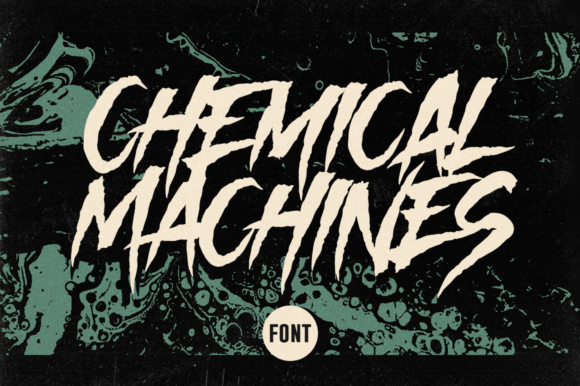
Chemical Machines Font: Unleashing Creativity and Horror
In the realm of typography, fonts play a crucial role in conveying emotions and setting the tone for creative projects. One such font that has gained significant attention in recent times is the Chemical Machines Font. This article aims to provide an in-depth look at this unique typeface, exploring its characteristics, uses, and the inspiration behind its creation.
The Birth of Chemical Machines Font
The Chemical Machines Font is a product of the pursuit of ultimate horror and retro typeface. Its creators aimed to push the boundaries of conventional typography, resulting in a font that is both eerie and fascinating. The font’s design draws inspiration from old machinery, industrial equipment, and the surrealism of the human mind.
Characteristics of Chemical Machines Font
The Chemical Machines Font boasts a distinctive, distressed look that sets it apart from other typefaces. Its rugged, industrial feel makes it perfect for projects that require a sense of grittiness and rawness. The font’s retro aesthetic is reminiscent of vintage machinery and equipment, evoking a sense of nostalgia and timelessness.
One of the key features of the Chemical Machines Font is its versatility. It can be used for monochromatic illustrations, adding a touch of sophistication and elegance to the artwork. Alternatively, it can be paired with modern gradient text effects, creating a striking contrast between old and new.
Exploring the Unexplored: Uses of Chemical Machines Font
The Chemical Machines Font is a versatile tool that can be used in a variety of creative projects. Its unique blend of horror and retro elements makes it perfect for:
- Monochromatic illustrations: Add a touch of industrial chic to your artwork with the Chemical Machines Font.
- Gradient text effects: Mix modern touches with the font’s retro aesthetic for a striking visual effect.
- Surrealism and pop art: Unleash your creativity and experiment with bold, eye-catching designs.
The Mysterious Chemical Machines: Uncovering the Inspiration
As we explore the Chemical Machines Font, a question arises: who or what are the Chemical Machines? The answer lies in the font’s inspiration and the creative process behind its creation. The Chemical Machines represent the fusion of human imagination and industrial machinery, resulting in a unique and captivating typeface.
The font’s creators drew inspiration from various sources, including:
- Industrial equipment: The rugged, mechanical look of old machinery and equipment.
- Surrealism: The blending of reality and fantasy, resulting in a sense of unease and uncertainty.
- Retro aesthetic: The nostalgic feel of vintage typography and design.
Unleashing Creativity with Chemical Machines Font
The Chemical Machines Font is more than just a typeface – it’s a tool for creative expression. Its unique characteristics and versatility make it perfect for artists, designers, and writers looking to push the boundaries of their work.
With the Chemical Machines Font, you can:
- Experiment with bold, eye-catching designs.
- Add a touch of industrial chic to your artwork.
- Unleash your creativity and explore new ideas.
The Chemical Machines Font is a captivating typeface that embodies the spirit of creativity and experimentation. Its unique blend of horror and retro elements makes it perfect for a wide range of creative projects. Whether you’re an artist, designer, or writer, this font is sure to inspire and challenge your imagination.